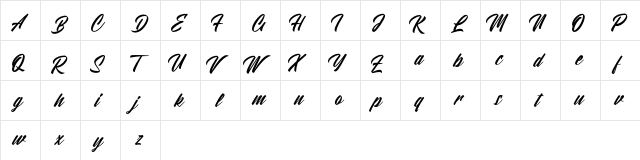
Atlantic Time Regular
Design Context for Atlantic Time Typeface
Atlantic Time is a composed and adaptable typeface that performs quietly and consistently across a wide range of design contexts.
Pro Tip: Use Atlantic Time in both headline and body roles to test its range before committing to a single application.